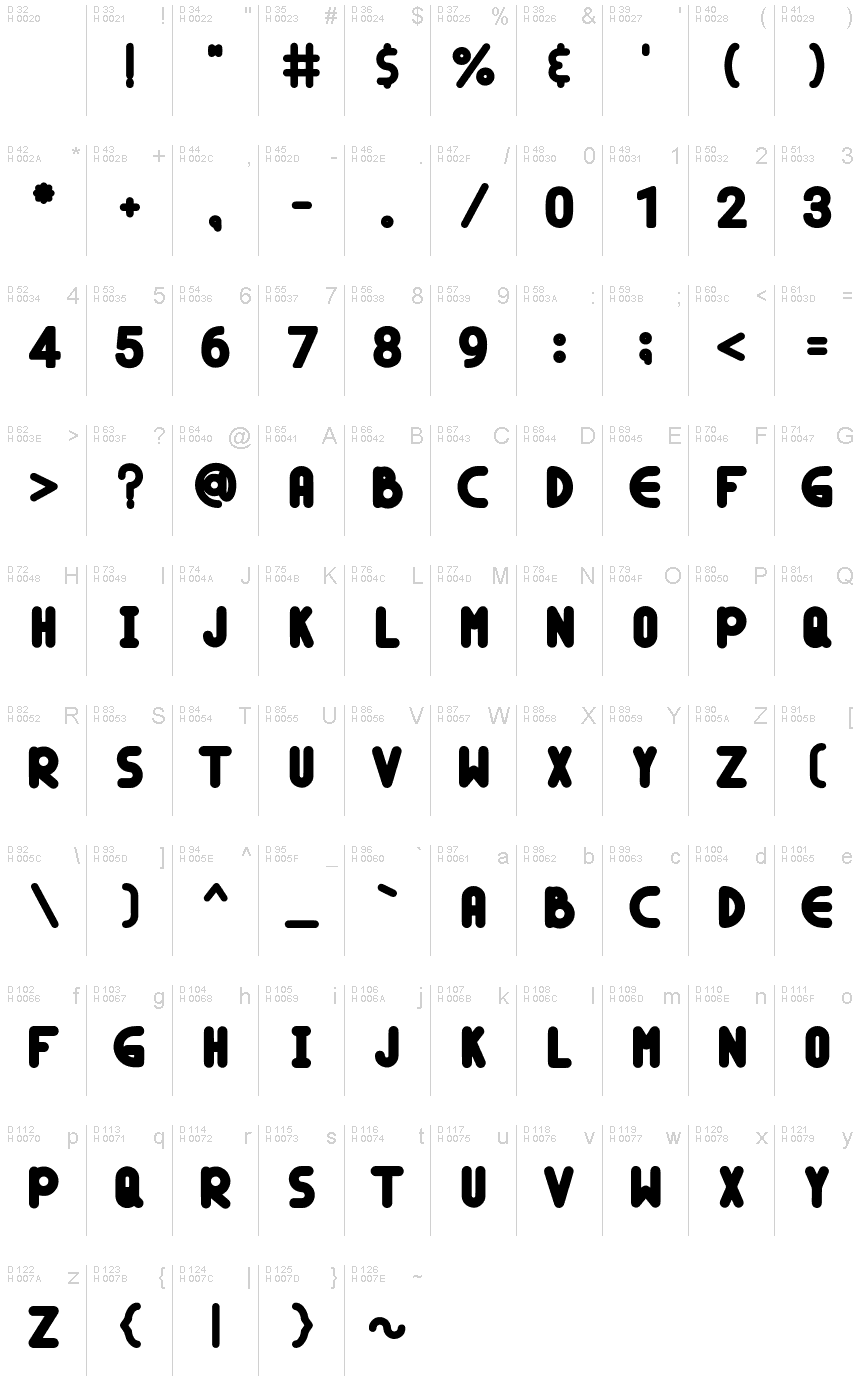
KONTANA
Introducing KONTANA, a bold and narrow font designed by Titik Creative. This modern font is perfect for creating eye-catching logos, posters, and headlines. It's also suitable for fashion magazines, websites, and social media posts that demand attention.